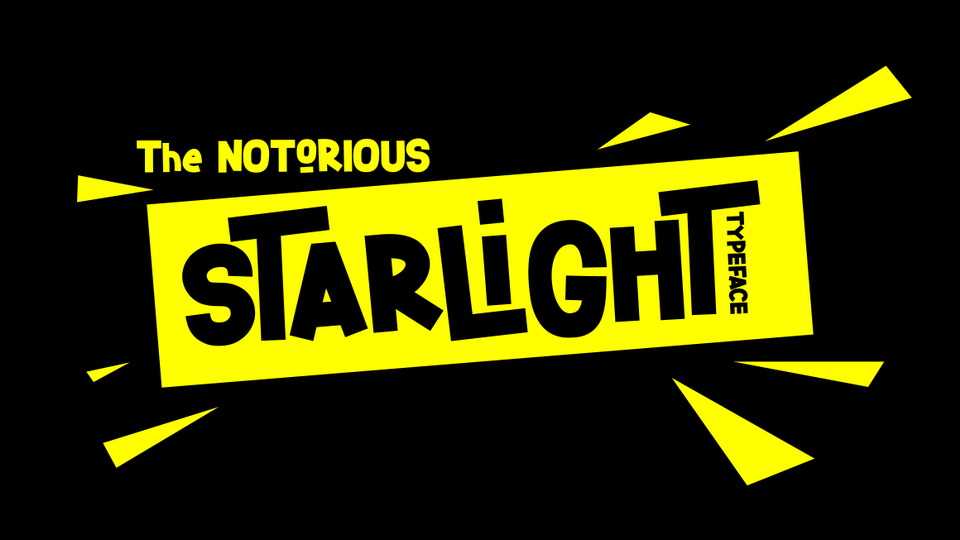
Download Starlight font, a striking display typeface with a unique look and bold character. Starlight is perfect for your character logo design, summer quote, and that powerful attitude poster. Go taste it!
Designer: NamiStudio